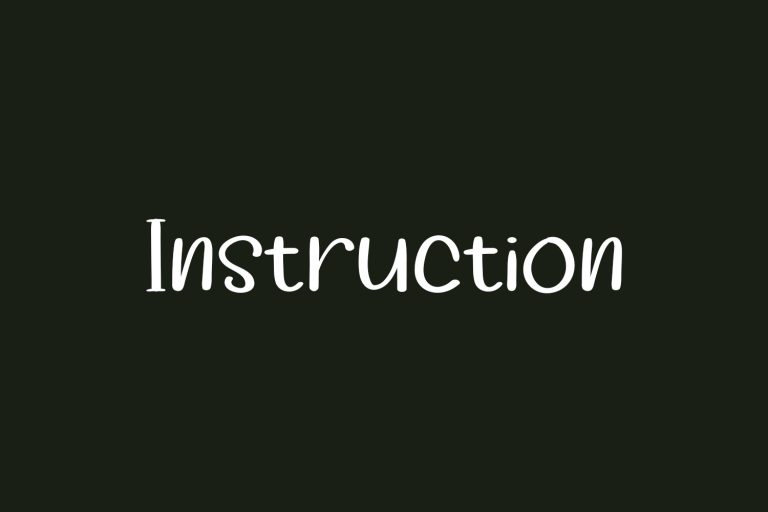
Best Font For Instructions . These fonts are designed for digital readability, offering clear letterforms and. From classic serif fonts like times new roman and garamond to modern sans serif fonts like arial and calibri, these fonts have been chosen for their proven effectiveness in professional and academic settings. You should avoid using a fancy font, though. Top legible fonts for website text content include sans serif fonts like roboto, open sans, and arial. For most manuals, black arial text on a white background is a good choice. When creating a user manual, it is important to choose the best font for user manual that is readable to readers.
When creating a user manual, it is important to choose the best font for user manual that is readable to readers. These fonts are designed for digital readability, offering clear letterforms and. For most manuals, black arial text on a white background is a good choice. Top legible fonts for website text content include sans serif fonts like roboto, open sans, and arial. You should avoid using a fancy font, though. From classic serif fonts like times new roman and garamond to modern sans serif fonts like arial and calibri, these fonts have been chosen for their proven effectiveness in professional and academic settings.
Best Font For Instructions For most manuals, black arial text on a white background is a good choice. Top legible fonts for website text content include sans serif fonts like roboto, open sans, and arial. When creating a user manual, it is important to choose the best font for user manual that is readable to readers. You should avoid using a fancy font, though. For most manuals, black arial text on a white background is a good choice. These fonts are designed for digital readability, offering clear letterforms and. From classic serif fonts like times new roman and garamond to modern sans serif fonts like arial and calibri, these fonts have been chosen for their proven effectiveness in professional and academic settings.
Best fonts for legal documents a complete guide Best Font For Instructions These fonts are designed for digital readability, offering clear letterforms and. For most manuals, black arial text on a white background is a good choice. You should avoid using a fancy font, though. Top legible fonts for website text content include sans serif fonts like roboto, open sans, and arial. From classic serif fonts like times new roman and garamond. Best Font For Instructions.
10 Essential Font Tips to a Master of Typography Best Font For Instructions Top legible fonts for website text content include sans serif fonts like roboto, open sans, and arial. From classic serif fonts like times new roman and garamond to modern sans serif fonts like arial and calibri, these fonts have been chosen for their proven effectiveness in professional and academic settings. For most manuals, black arial text on a white background. Best Font For Instructions.
Are you looking for the perfect brand font? But you feel that choosing Best Font For Instructions Top legible fonts for website text content include sans serif fonts like roboto, open sans, and arial. These fonts are designed for digital readability, offering clear letterforms and. When creating a user manual, it is important to choose the best font for user manual that is readable to readers. From classic serif fonts like times new roman and garamond to. Best Font For Instructions.
The 15 Best Readable Fonts for Print Design Creative Fabrica Best Font For Instructions When creating a user manual, it is important to choose the best font for user manual that is readable to readers. You should avoid using a fancy font, though. Top legible fonts for website text content include sans serif fonts like roboto, open sans, and arial. These fonts are designed for digital readability, offering clear letterforms and. For most manuals,. Best Font For Instructions.
15 Best Programming Fonts for Coding and Development (Free!) Best Font For Instructions You should avoid using a fancy font, though. From classic serif fonts like times new roman and garamond to modern sans serif fonts like arial and calibri, these fonts have been chosen for their proven effectiveness in professional and academic settings. Top legible fonts for website text content include sans serif fonts like roboto, open sans, and arial. These fonts. Best Font For Instructions.
How to Choose the Best Font for Emails The Email Marketers Best Font For Instructions For most manuals, black arial text on a white background is a good choice. Top legible fonts for website text content include sans serif fonts like roboto, open sans, and arial. When creating a user manual, it is important to choose the best font for user manual that is readable to readers. These fonts are designed for digital readability, offering. Best Font For Instructions.
Best Fonts for UI Design, I use Daily. by Vikalp Kaushik UX Best Font For Instructions These fonts are designed for digital readability, offering clear letterforms and. When creating a user manual, it is important to choose the best font for user manual that is readable to readers. From classic serif fonts like times new roman and garamond to modern sans serif fonts like arial and calibri, these fonts have been chosen for their proven effectiveness. Best Font For Instructions.
6 Best Font Design Software (Edit & Make Custom Fonts) Best Font For Instructions These fonts are designed for digital readability, offering clear letterforms and. When creating a user manual, it is important to choose the best font for user manual that is readable to readers. You should avoid using a fancy font, though. From classic serif fonts like times new roman and garamond to modern sans serif fonts like arial and calibri, these. Best Font For Instructions.